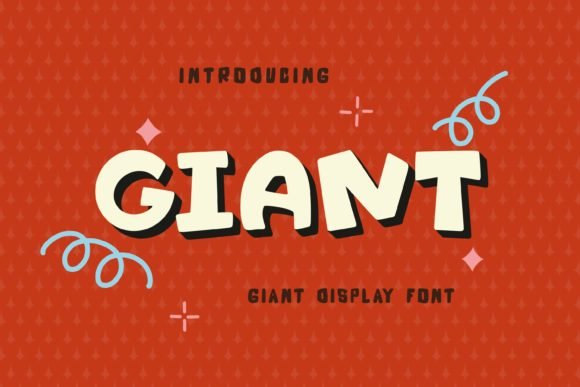
Get Ready to Make a Statement with Giant Font
Do you remember the thrill of discovering a new font that just sparks your creativity? For many designers, that moment is what makes all the hard work worth it. Imagine being able to add a touch of whimsy and playfulness to your next project, making it stand out from the crowd.
Giant Font is a quirky and thick lettered cartoon display font that’s perfect for kids’ artwork, classroom decorations, or sticker designs. Its unique style is sure to bring a smile to the faces of both kids and adults alike. Whether you’re a seasoned designer or just starting out, Giant Font is a valuable addition to your toolkit. Add it confidently to your favorite creations and let yourself be amazed by the outcome generated.
Giant Font Review
Overall, I’m impressed with the unique features of Giant Font, but it’s not without its flaws. Here’s my honest review:
✨ The font sizes are, as advertised, truly gigantic. It’s a great option for those looking to make a bold statement or highlight important text.
✨ The customization options are extensive, allowing users to adjust font sizes, colors, and even add animations. This level of control is a major plus.
✨ The font styles are diverse and well-designed, making it easy to find a look that suits your needs.
⚠️ The font sizes can be overwhelming for smaller screens or devices. It may be necessary to adjust the font size on mobile devices for a more readable experience.
⚠️ The animations can be distracting and may not be suitable for all types of content. It’s best to use them sparingly.
⚠️ The font weights can be inconsistent at larger sizes, which may affect readability.
Giant Font is a great option for those looking to make a bold statement or highlight important text. While it has some limitations, the customization options and diverse font styles make it a solid choice. Just be mindful of the potential issues on smaller screens and use the animations and font weights wisely.
Common Use Cases for Giant Font
Giant font is commonly used in headings, titles, and attention-grabbing text. It’s also used in advertising, social media posts, and presentations to make a statement. Be cautious not to overuse giant font, as it can be overwhelming and difficult to read.